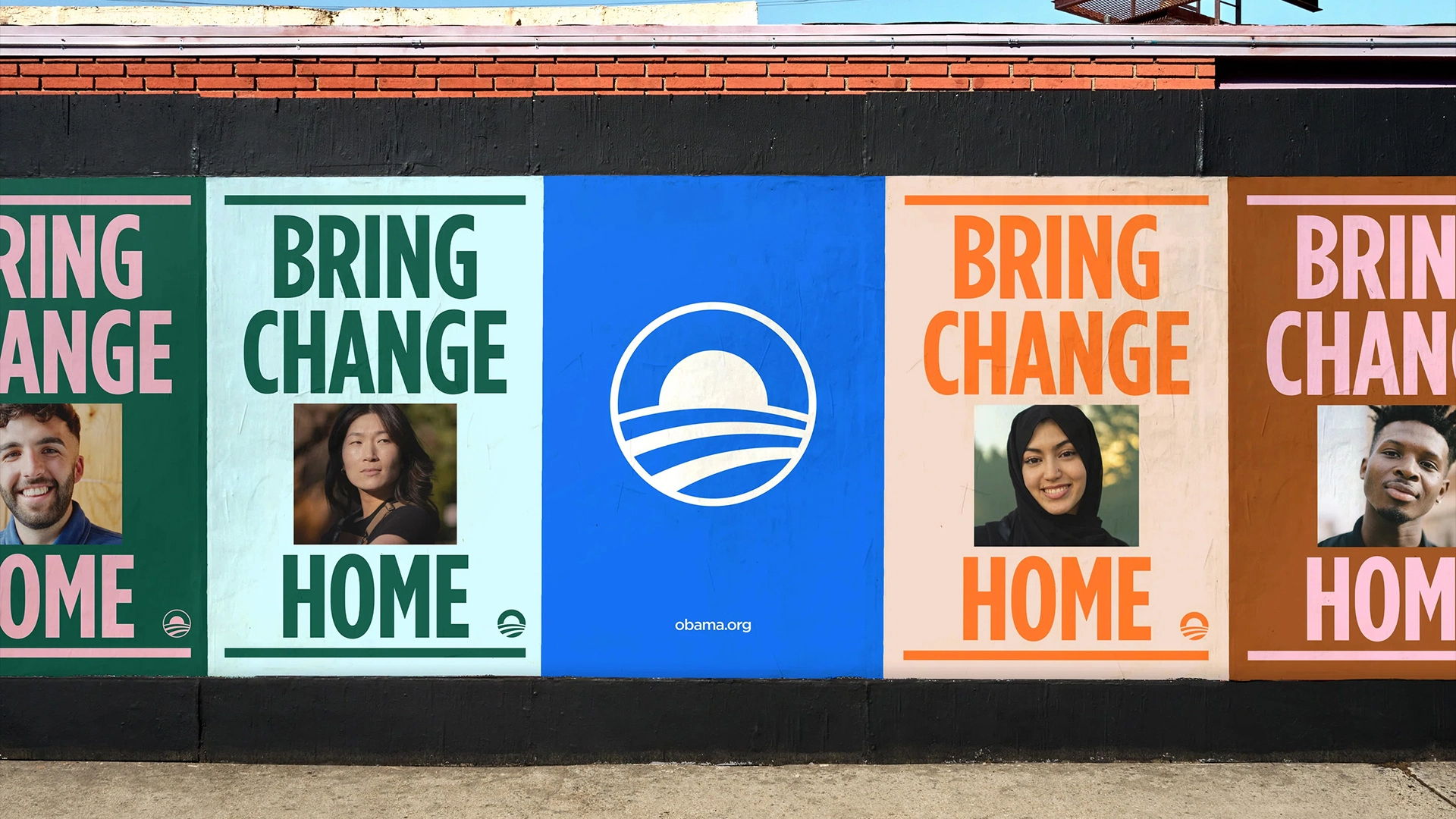
The Obama Foundation reinvents legendary font in future-forward rebrand
It’s a masterful blend of past and present.
The Obama Foundation has unveiled a fresh visual identity celebrating heritage and empowerment, inspiring future generations through immersive design and captivating storytelling. With community at its heart, the organisation's style revamp ushers in a new era bursting with vibrancy, contemporary flair and an unwavering spirit of hope.
As with the best rebrands of all time, The Obama Foundation's new visual identity is a curated blend of history and modern momentum, capturing the brand's essence while evolving towards the future. With a refreshed colour palette, heritage-inspired typography and dynamic graphics, the new look is a fluid take on modern design with a sophisticated timeless appeal.
Working with Manual Creative, Work & Co and Myself & Others, The Obama Foundation's visual identity centres around the theme of honouring the past. Digging into the brand's heritage, three bespoke versions of Gotham Condensed Bold were created for the project – Gotham Stencil, Gotham Inline and Gotham Slab. Referencing the font's association with the 'Hope' posters of the 2008 Obama campaign, the new typefaces have evolved into a symbol of hope – a medium to represent diverse voices and perspectives, all with a unique contemporary appeal.
The playful new typefaces are paired with bold visuals, including dynamic motion graphics inspired by the concepts "advance, uncover, grow, unite, and ambient harmony." With geometric patterns and ripple effects, the visual assets bring a sense of momentum to the visual identity, representing action and meaningful change. The contemporary array of illustrative styles celebrates diversity, using visual storytelling to cover the themes of "empowerment, community, education, and progress."